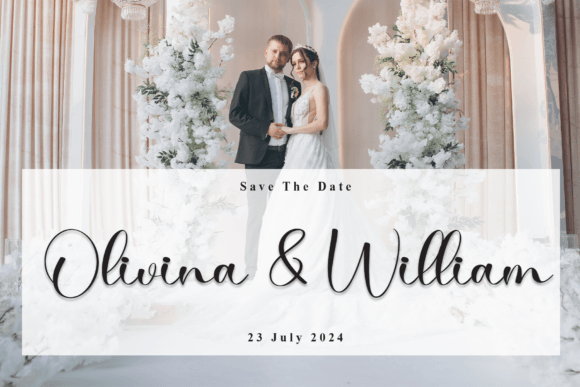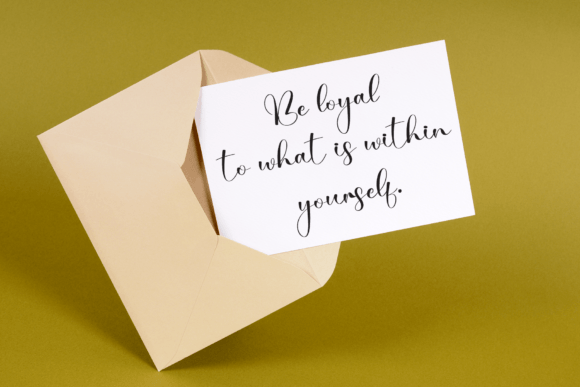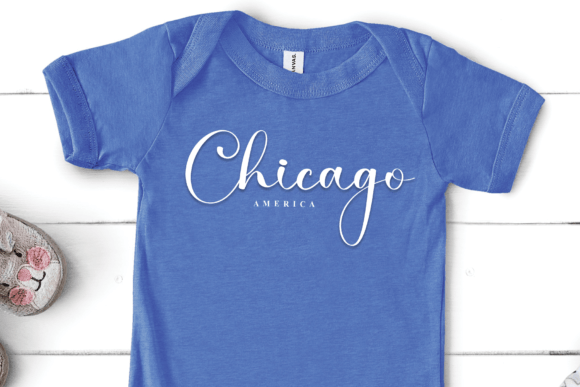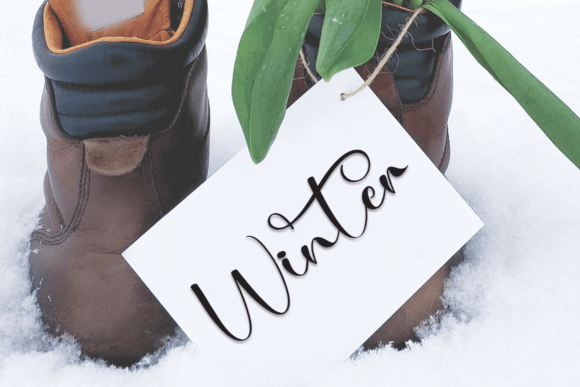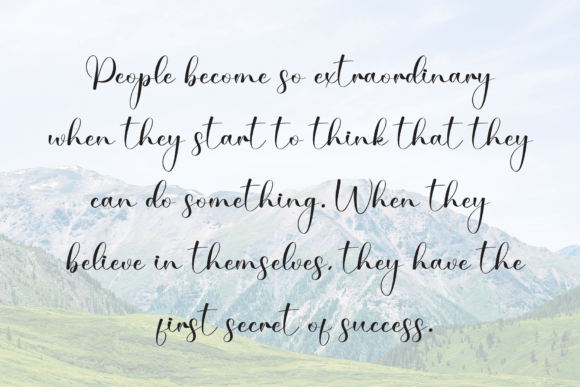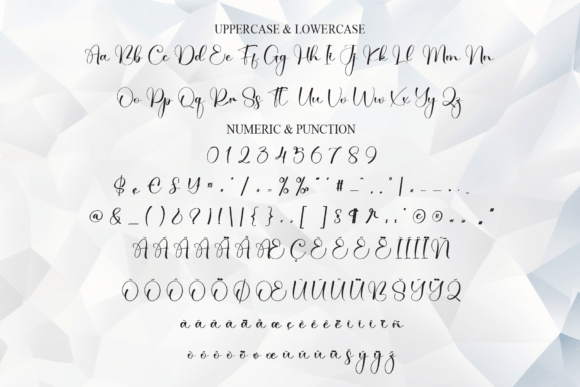
Cristal Font: Adding a Touch of Artistic Flair to Your Designs
Cristal Font is a beautiful, handwritten font that has been making waves in the design community. Its unique style, characterized by alternating bold and thin lines, gives text a lively and artistic feel that’s perfect for a variety of design projects. In this article, we’ll take a closer look at Cristal Font, its features, and how you can use it to elevate your designs.
The Unique Style of Cristal Font
Cristal Font is a handwritten font that stands out from the crowd. Its distinctive style is achieved through the alternating use of bold and thin lines, which creates a sense of movement and energy. This unique feature makes Cristal Font perfect for designs that require a touch of personality and whimsy. Whether you’re working on a logo, a poster, or a social media graphic, Cristal Font is sure to add a dash of artistic flair.
Key Features of Cristal Font
• Handwritten style: Cristal Font has a beautiful, handwritten feel that’s perfect for designs that require a personal touch.
• Alternating bold and thin lines: The font’s unique style is achieved through the alternating use of bold and thin lines, which creates a lively and artistic feel.
• Highly legible: Despite its artistic style, Cristal Font is highly legible, making it perfect for use in a variety of design projects.
• Versatile: Cristal Font can be used in a range of design projects, from logos and posters to social media graphics and more.
Using Cristal Font in Your Designs
Cristal Font is a versatile font that can be used in a variety of design projects. Here are a few ideas to get you started:
• Logos: Cristal Font is perfect for creating unique and memorable logos that stand out from the crowd.
• Posters: Add a touch of artistic flair to your posters with Cristal Font, which is perfect for creating eye-catching headlines and titles.
• Social media graphics: Cristal Font is a great choice for social media graphics, where its unique style can help your content stand out.
• Invitations and cards: Cristal Font is perfect for creating beautiful, handmade-style invitations and cards.
Tips for Getting the Most Out of Cristal Font
Here are a few tips for getting the most out of Cristal Font:
• Experiment with different colors: Cristal Font looks great in a range of colors, so don’t be afraid to experiment and find the perfect shade for your design.
• Play with font sizes: Cristal Font can be used at a range of font sizes, from large headlines to smaller body text.
• Combine with other fonts: Cristal Font pairs well with a range of other fonts, so feel free to experiment and find the perfect combination for your design.
Cristal Font is a beautiful, handwritten font that’s perfect for designers and crafters looking to add a touch of artistic flair to their designs. Its unique style, characterized by alternating bold and thin lines, gives text a lively and artistic feel that’s sure to make your designs stand out. With its high legibility, versatility, and range of uses, Cristal Font is a great choice for a variety of design projects. So why not give it a try and see the difference it can make in your designs?